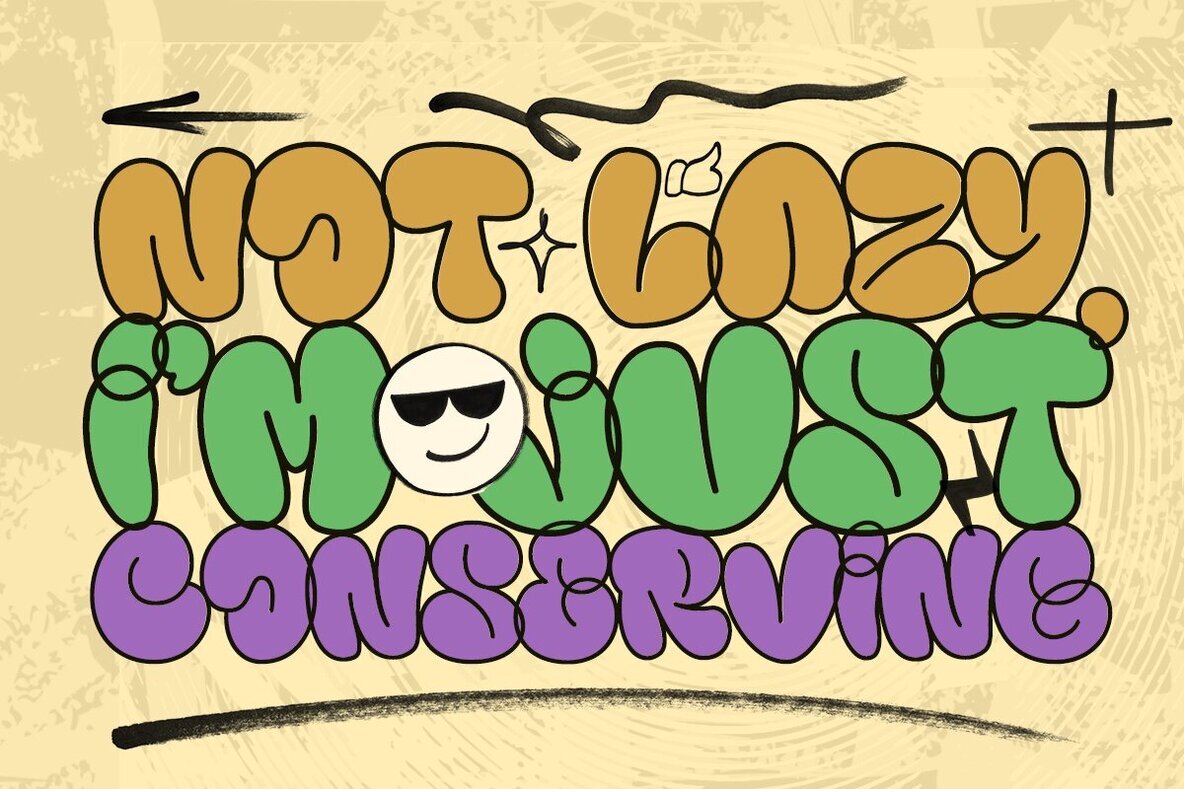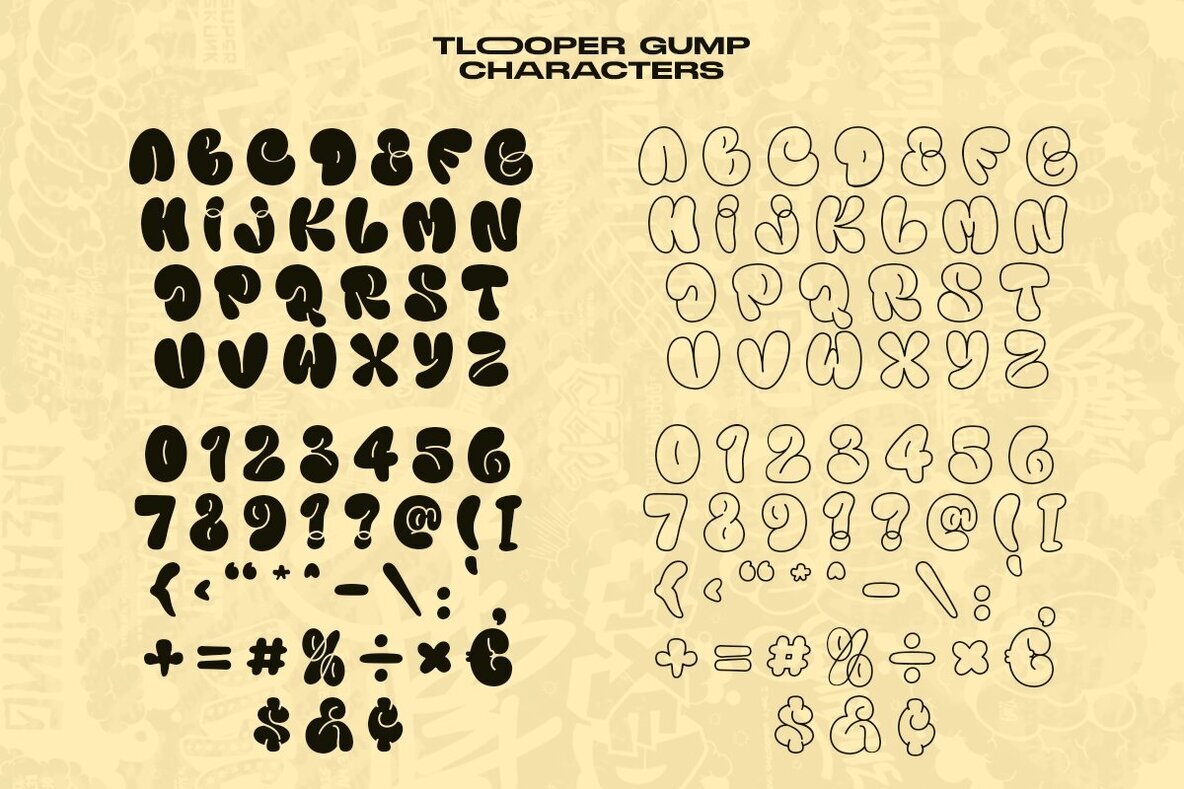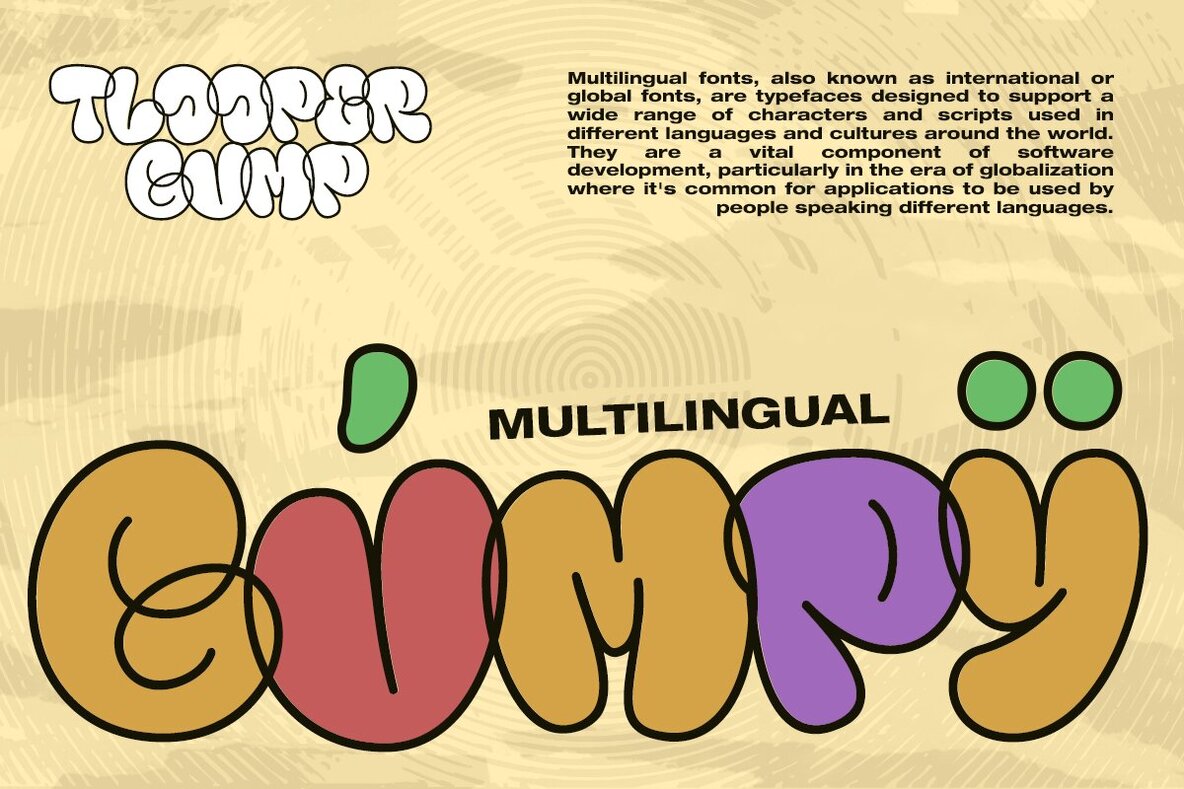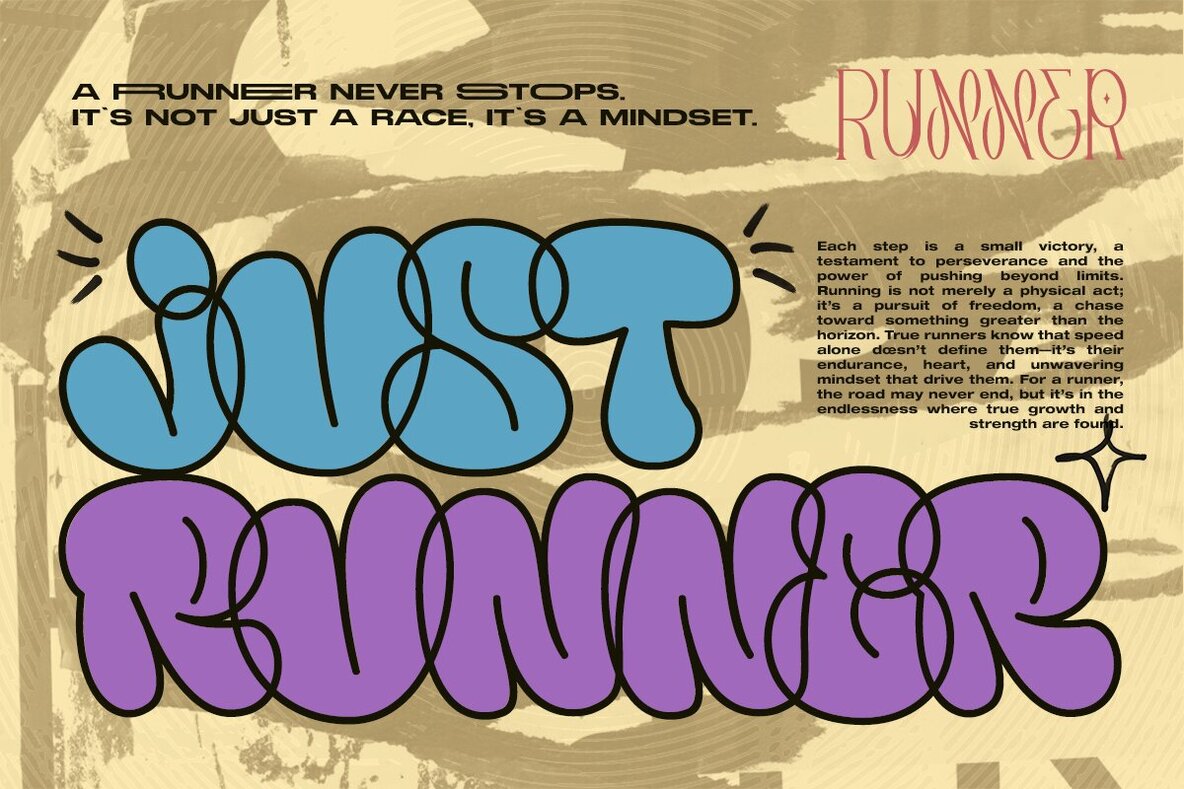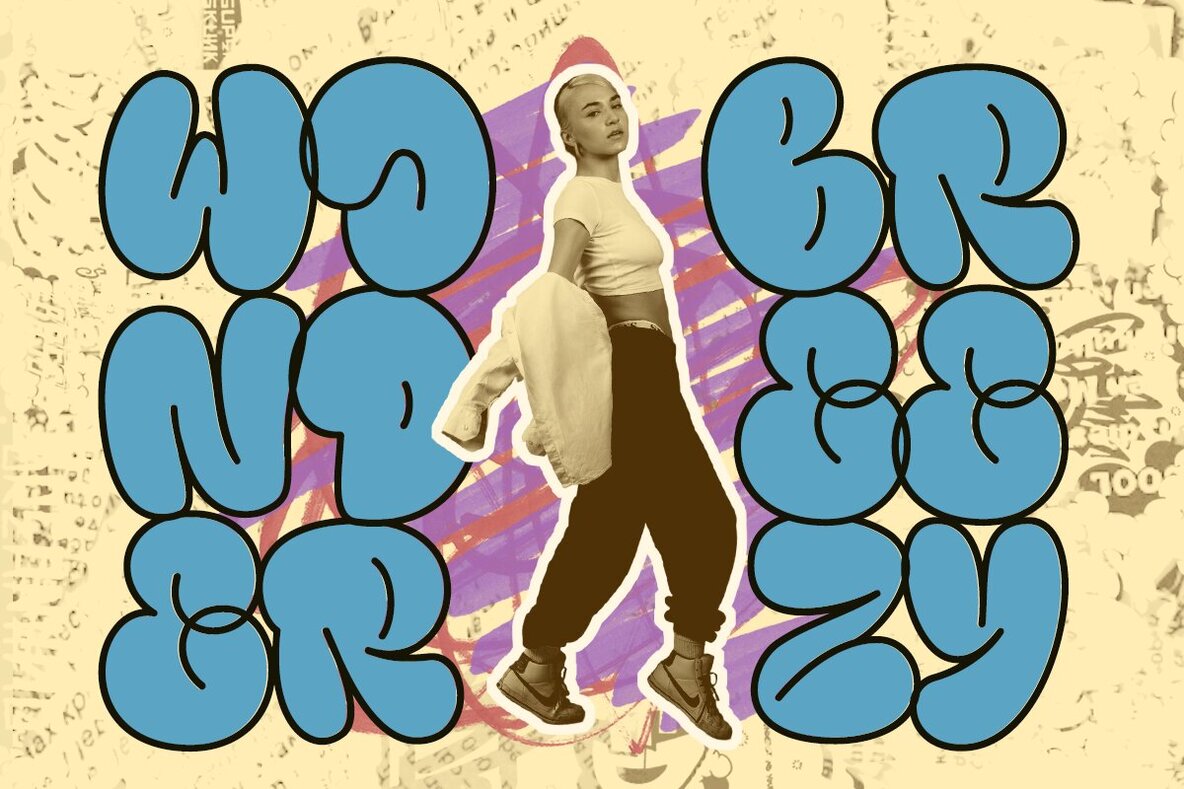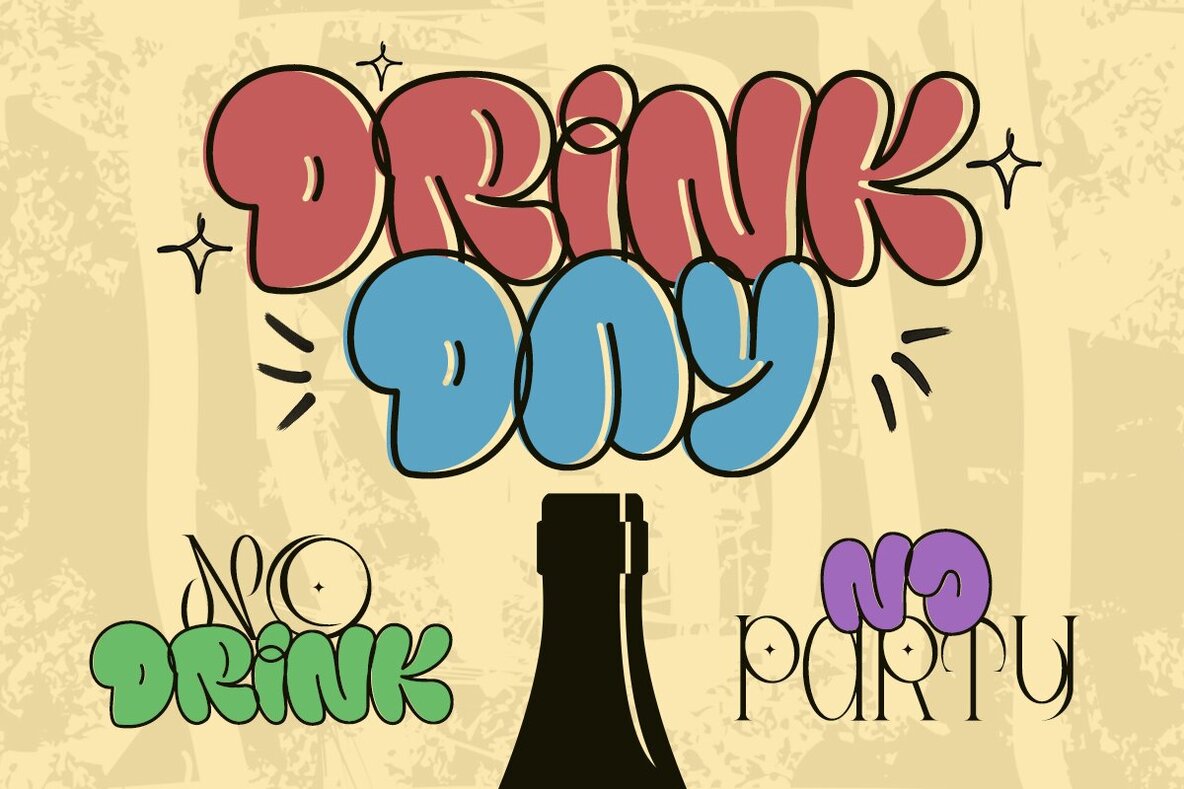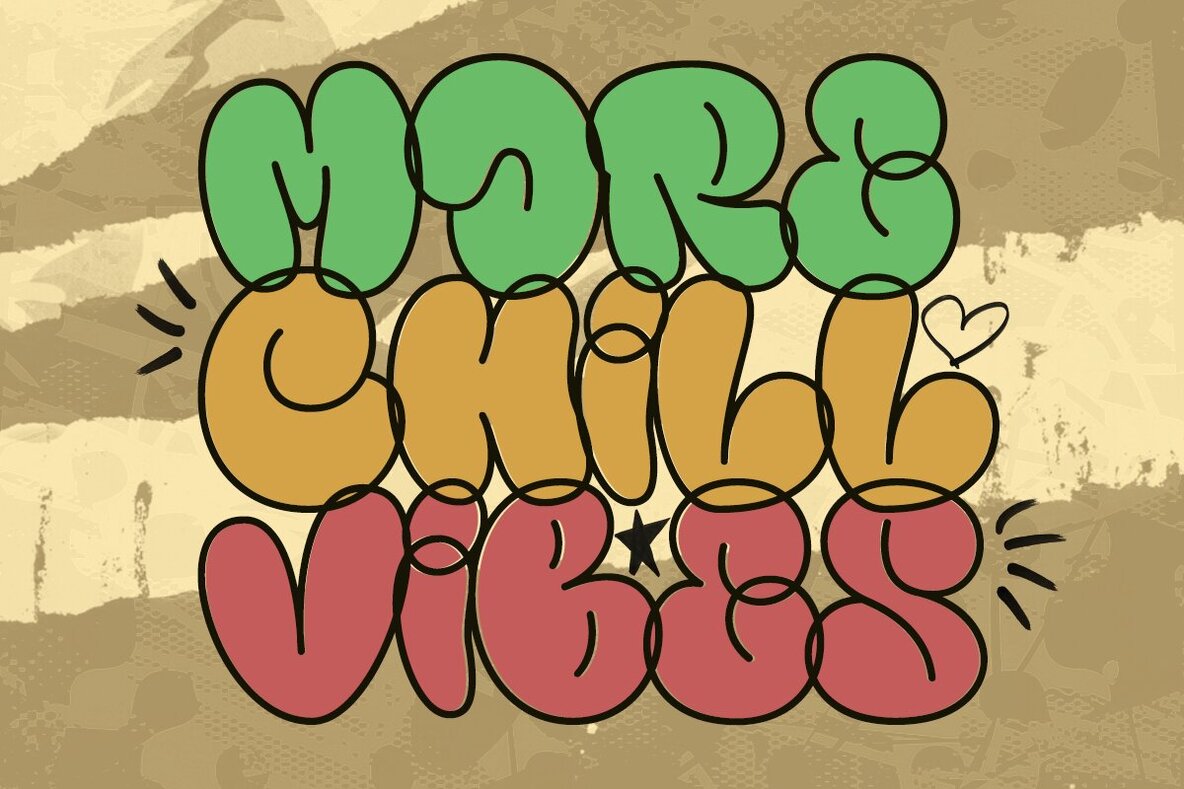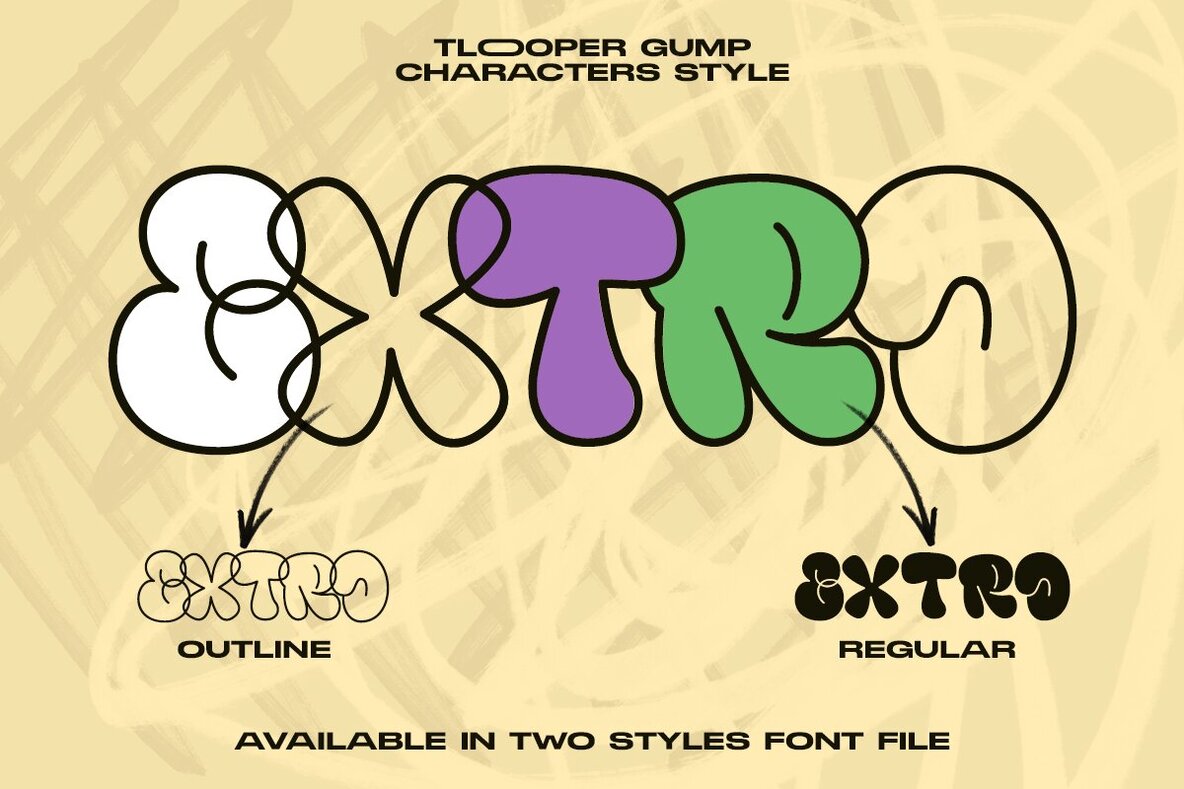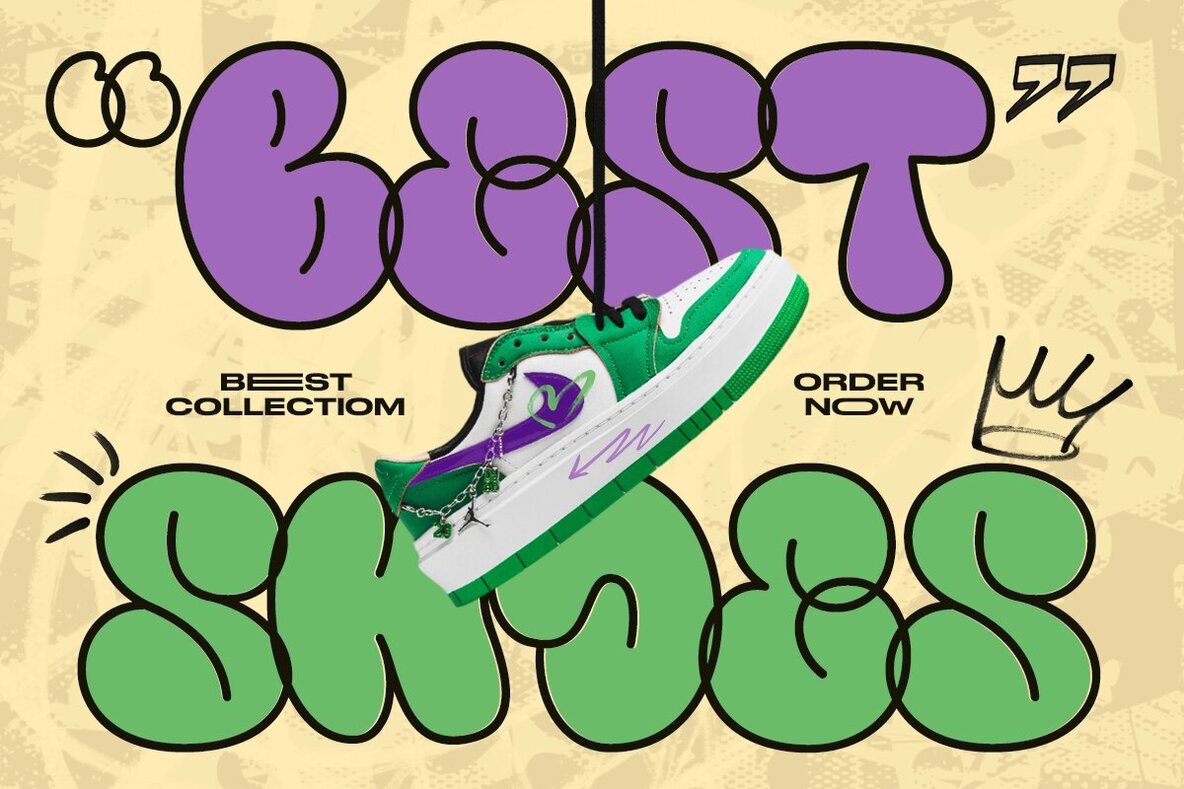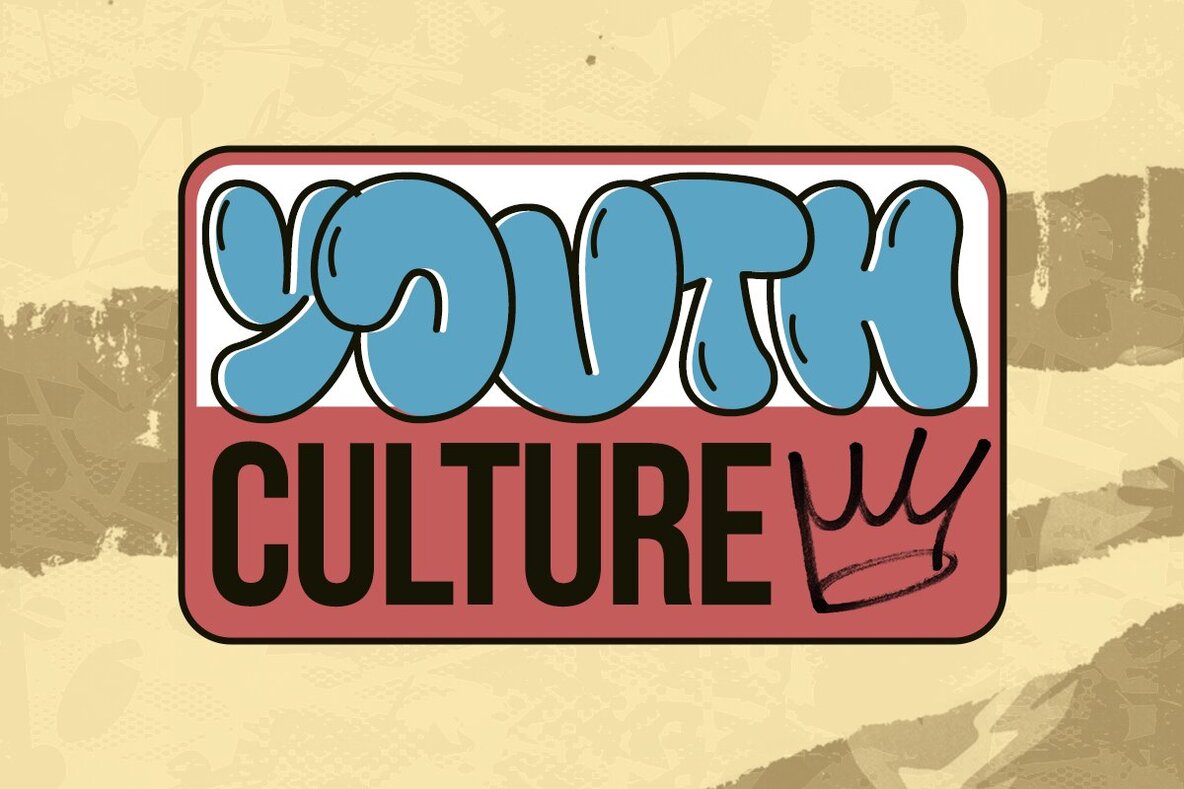
Tlooper Gump Font
Tlooper Gump offers a vibrant and playful bubble graffiti style, perfect for infusing an urban vibe into your creative projects. With its smooth curves and chunky shapes, this font embodies a dynamic street art aesthetic. Whether you're designing for party flyers, urban-themed posters, or game interfaces, Tlooper Gump adds a fun dimension and youthful energy.
This versatile font enhances apparel and merchandise designs, streetwear branding, and social media graphics with its bold personality. Its distinctive style ensures your projects stand out, resonating with a lively, playful audience. Dive into the world of street-inspired design with Tlooper Gump and let your creativity shine.